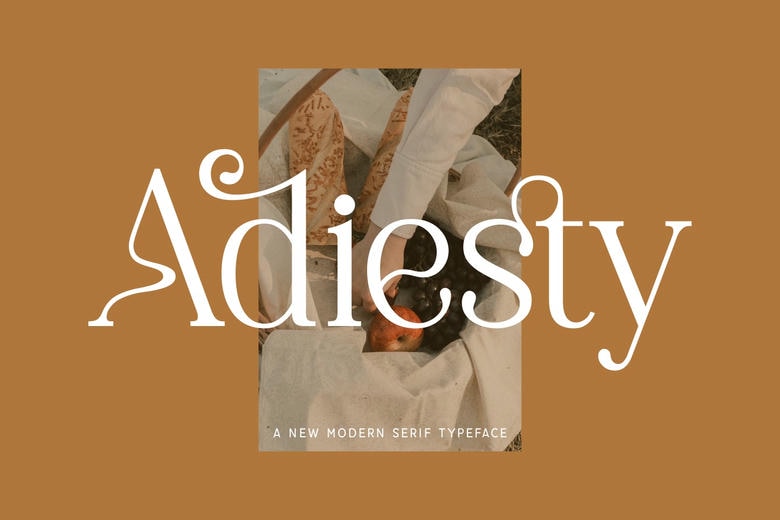
Adiesty Font
Adiesty is a complex contemporary serif font with decorative swishes and smooth lines with timeless temperament. Completely in-between old and modern styles, It is perfect to be used in editorial design, high end branding, wedding invitation, and luxury packaging. Adiesty transforms each letter into a statement of graphic nature.
Adiesty Serif Font